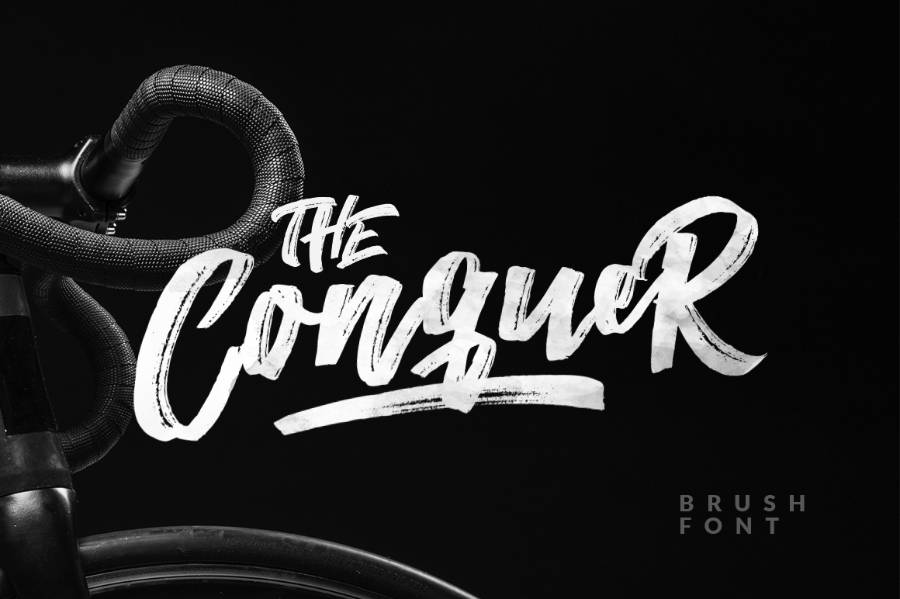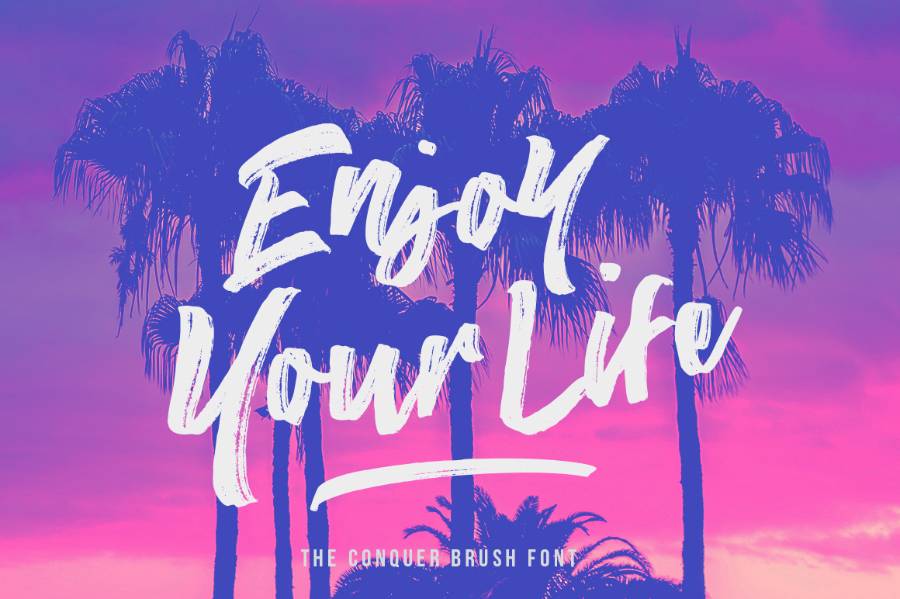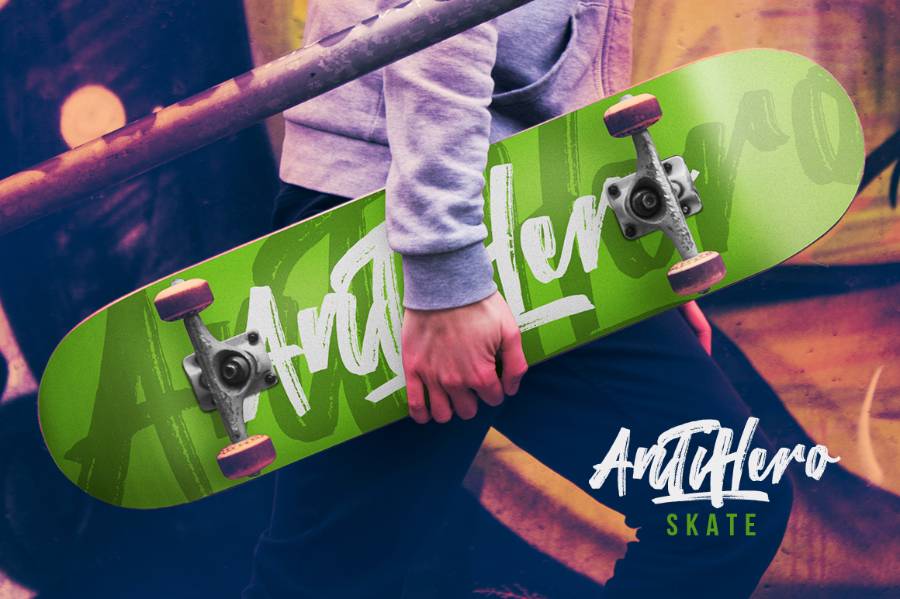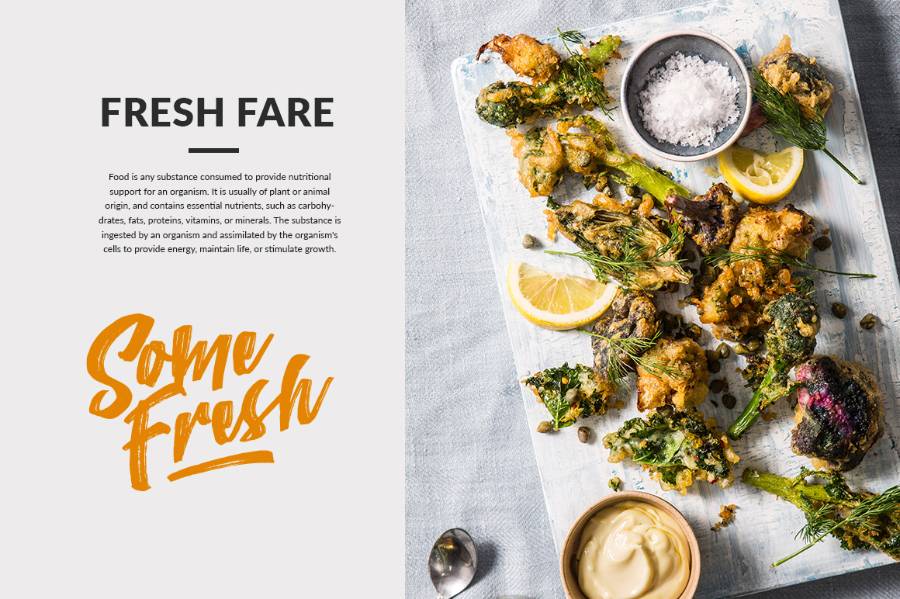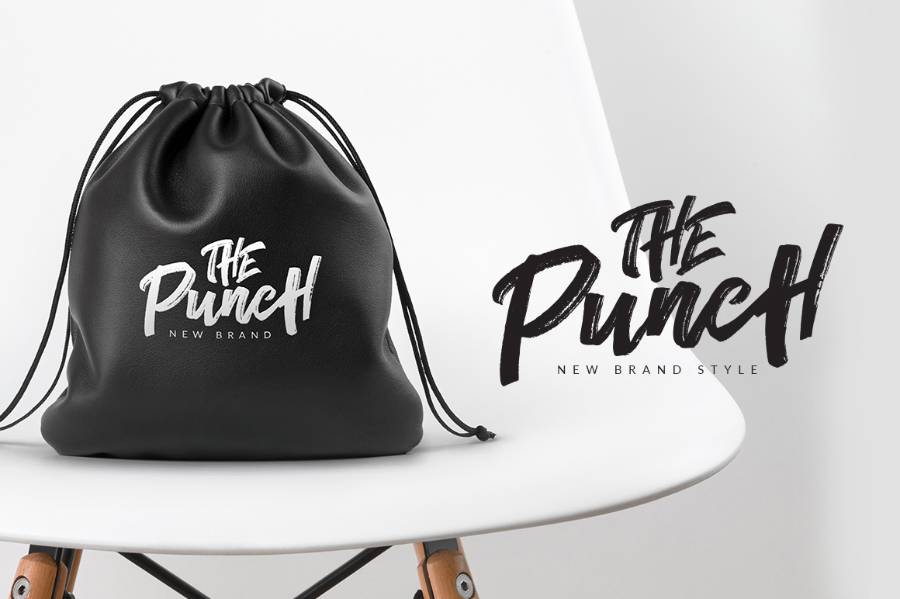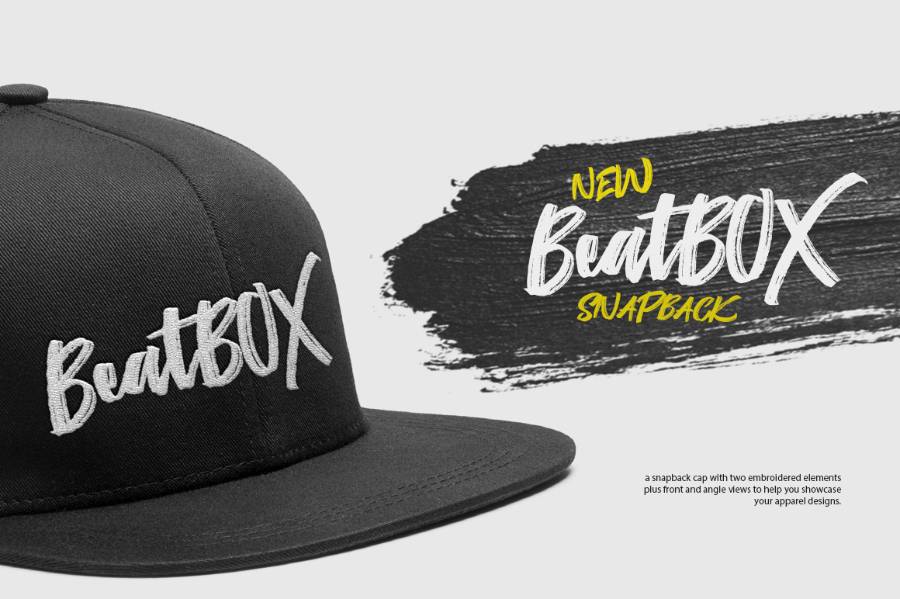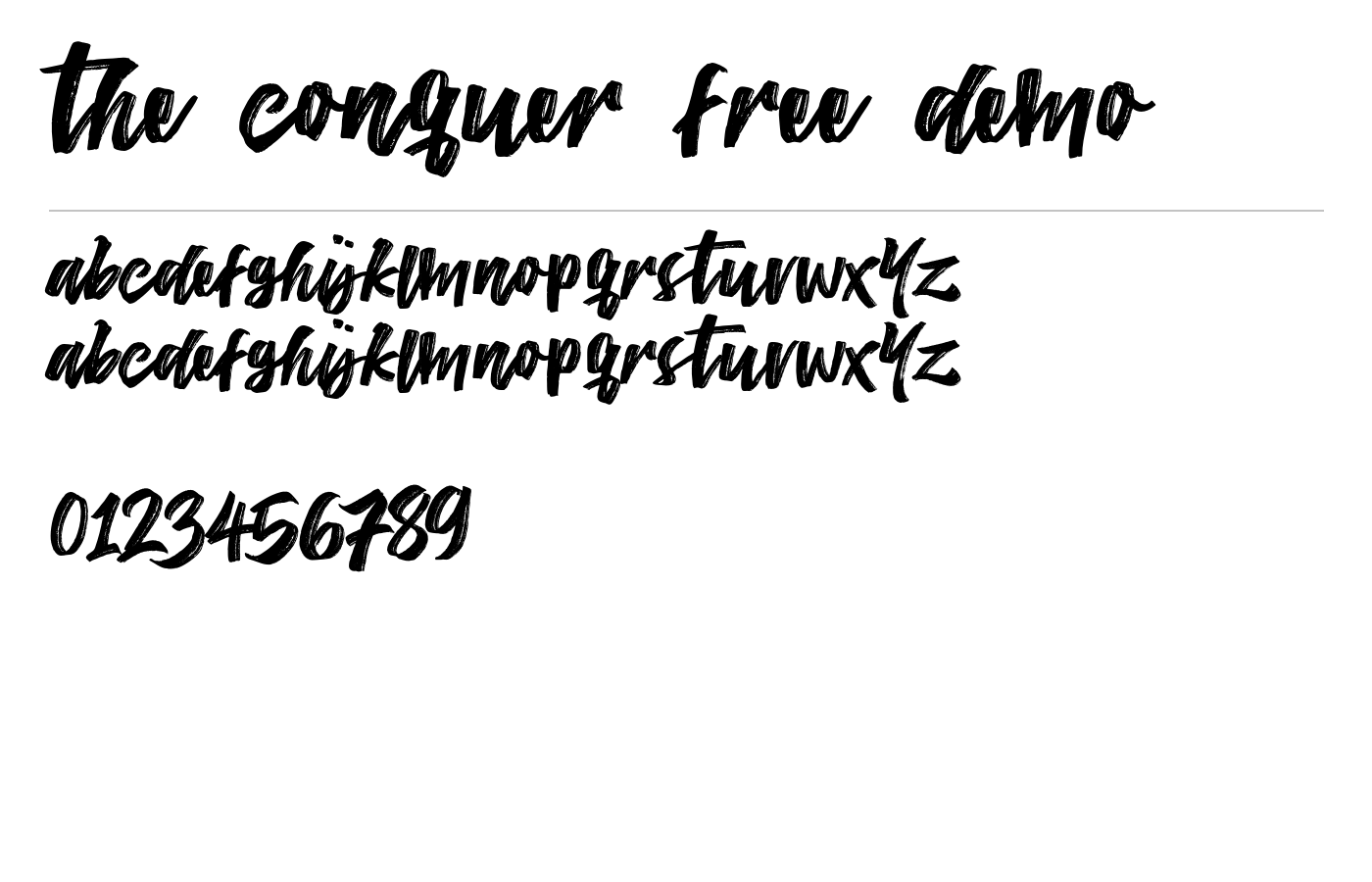
Conquer Brush Demo is a bold, expressive script font that mimics dynamic brush strokes with a textured, handcrafted feel. Its tall, slightly condensed letterforms and energetic flow make it perfect for informal, creative designs such as logos, posters, and social media graphics where a lively and personal touch is desired. This font’s strong personality conveys confidence and artistic flair, making it ideal for brands aiming to stand out with a modern and spirited style.
Conquer Brush Demo
About Conquer Brush Demo